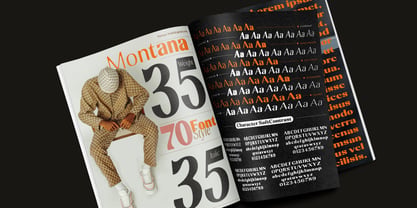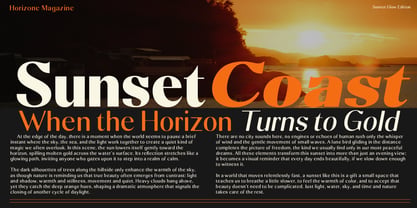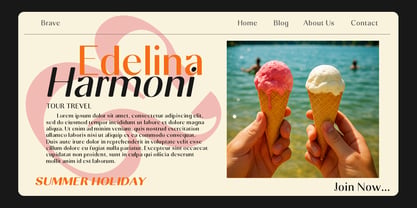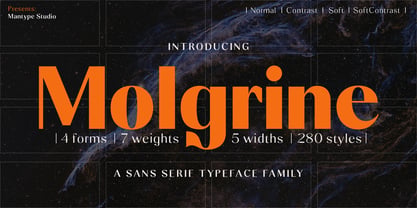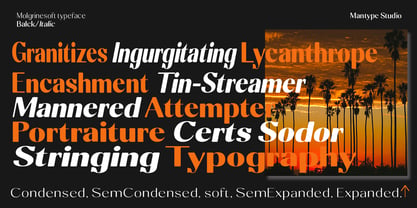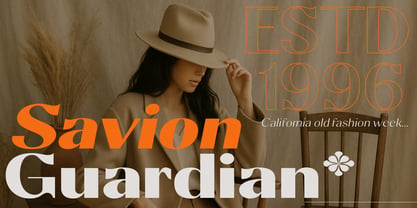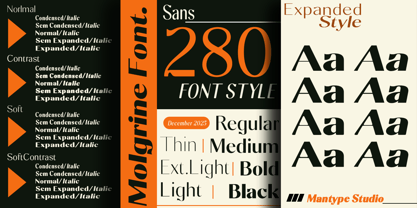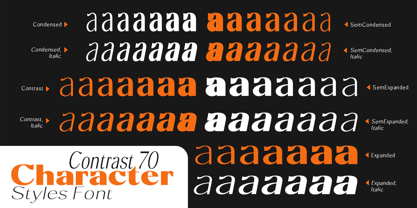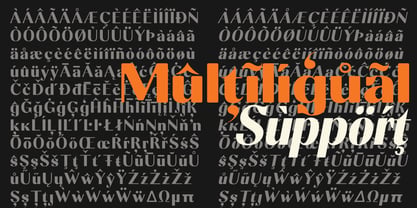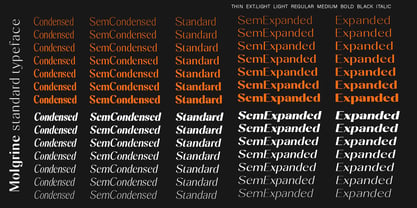
Molgrine
by Mantype Studio
The Molgrine Font Family was designed by Sulai Man and published by Mantype Studio. Molgrine contains 287 styles. More about this family
Molgrine is a modern sans serif typeface family designed with a bold, clean, and confident character. It strikes a refined balance between contemporary aesthetics and high functional versatility, making it an excellent choice for modern design needs that demand a professional, futuristic, and expressive visual presence. Molgrine features strong letter structures with well-crafted geometric proportions, complemented by subtle, smooth curves in select characters. This combination creates a typeface that feels solid and authoritative while remaining elegant and approachable. Its letterforms project confidence, stability, and exceptional legibility across both large display sizes and smaller text applications. The family includes 4 forms, 7 weights, and 5 widths, resulting in a comprehensive system of 280 styles. This extensive range allows designers to explore a wide variety of visual expressions—from minimalist typography and editorial layouts to premium branding, experimental compositions, and digital interfaces. Molgrine also offers multiple visual modes such as Normal, Contrast, Soft, and SoftContrast, enabling designers to fine-tune the typographic tone to match different moods—whether bold and dramatic or soft and refined. Overall, Molgrine is a typeface that is: Modern and forward-looking Highly flexible and adaptable Powerful for headlines yet clean and readable for body text Ideal for branding, posters, magazines, web design, UI/UX, and contemporary creative projects Molgrine is not just a font—it is a modern typographic system crafted to express identity, visual strength, and the evolving language of contemporary design.
Molgrine